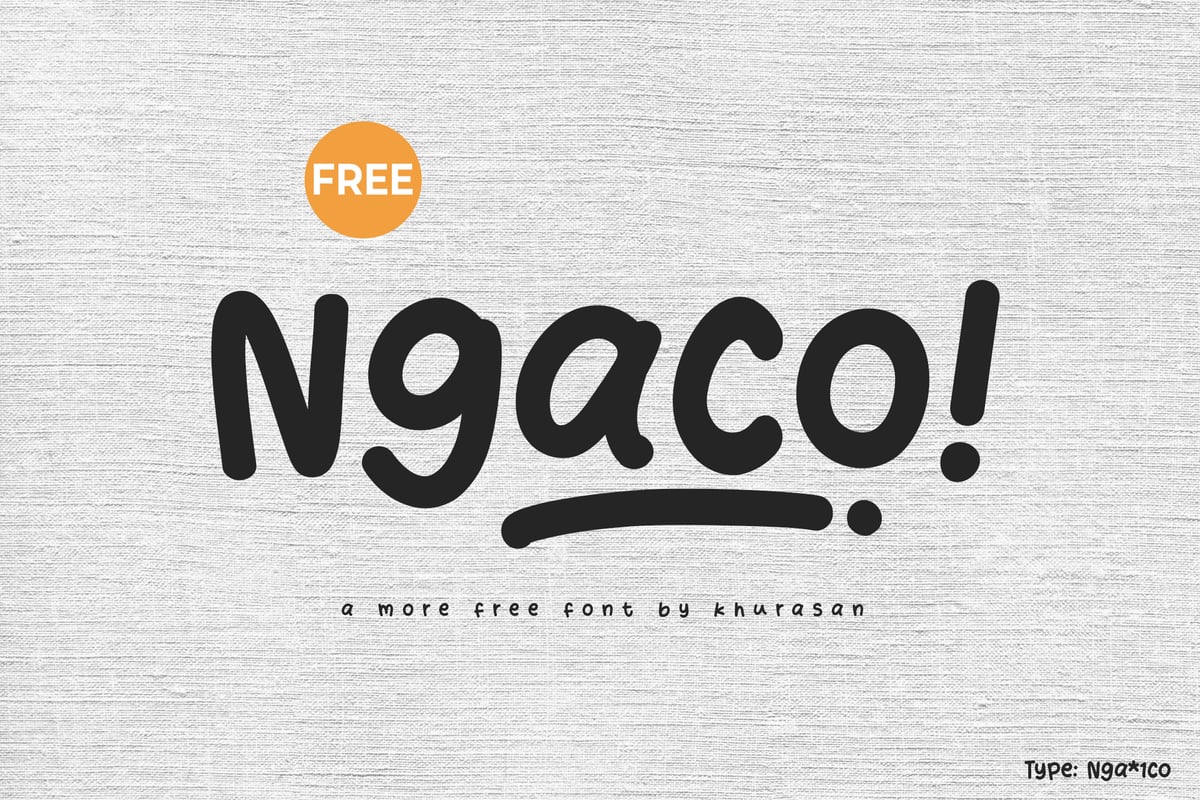
Free Ngaco - Free Marker Font
Meet Ngaco - the playfully confident font that brings effortless charm to every design project.
Searching for a typeface that doesn't take itself too seriously? Ngaco is your answer! Drawing inspiration from casual doodles and bold marker sketches, this font delivers a relaxed, handcrafted feel to any creative work. Whether you're designing a birthday card or creating a trendy t-shirt, Ngaco makes everything look naturally effortless.